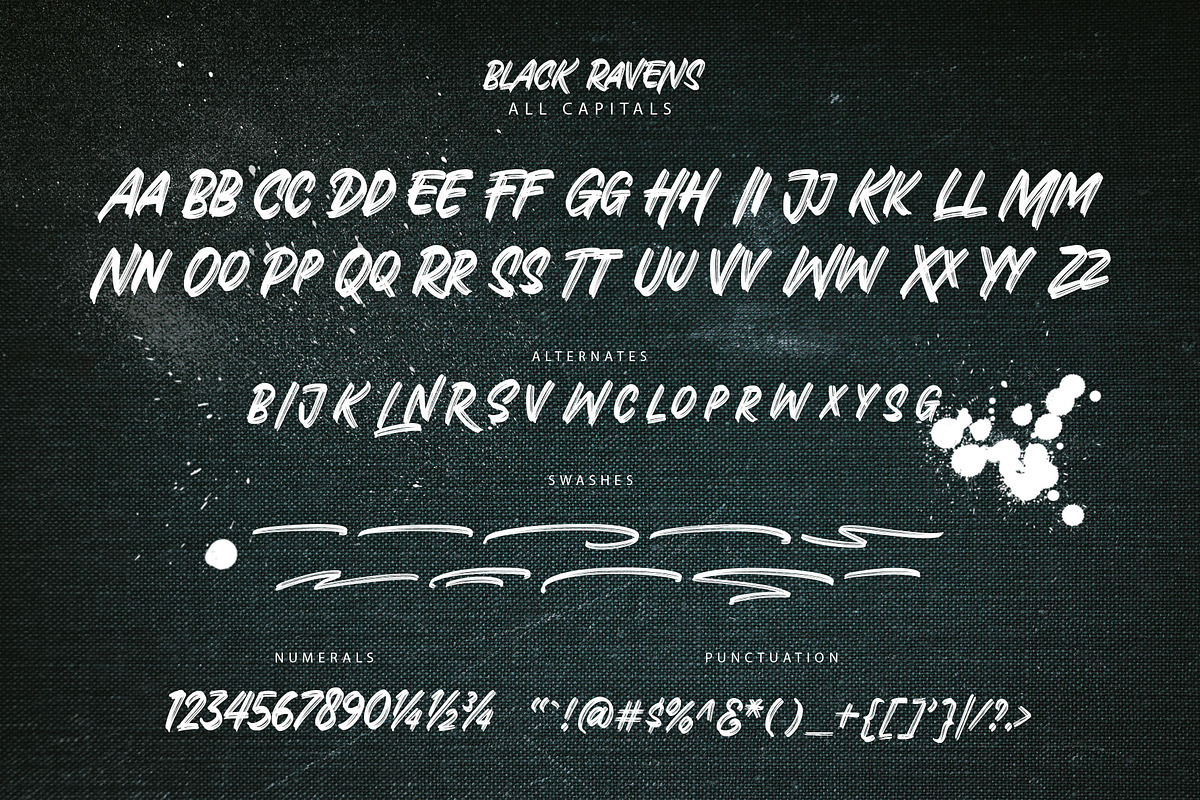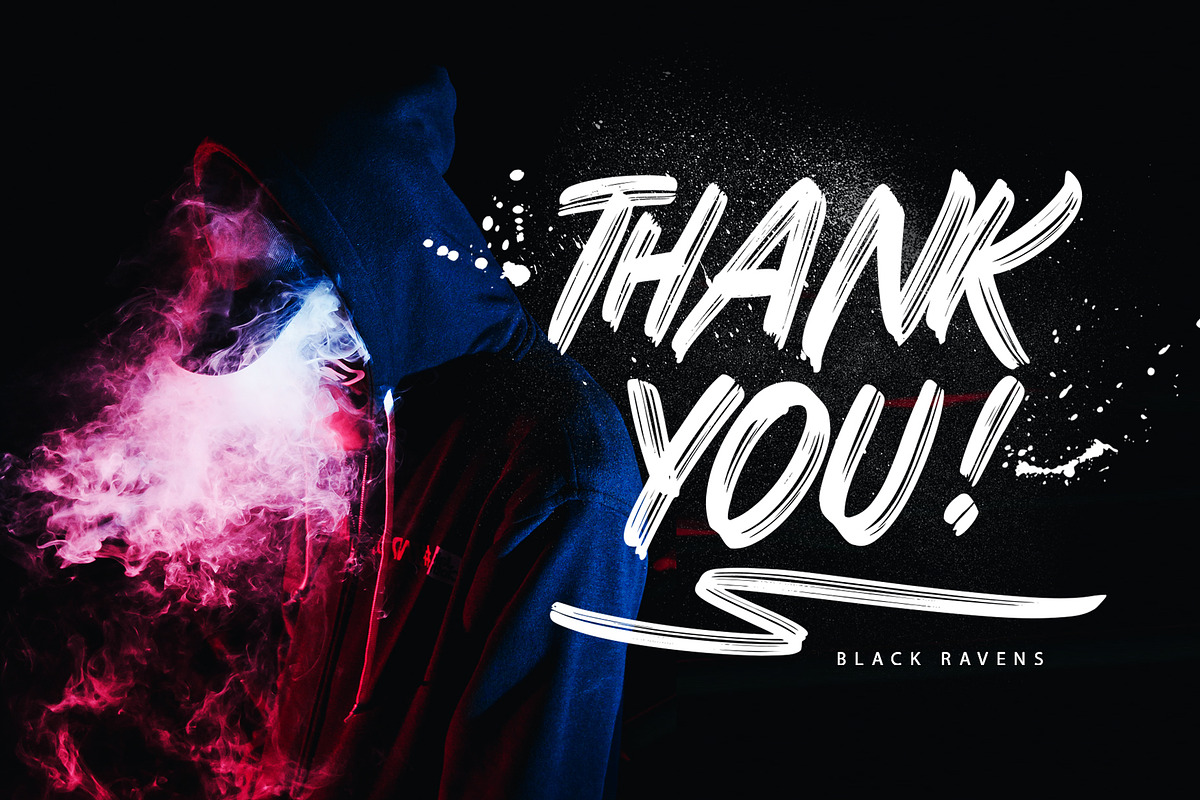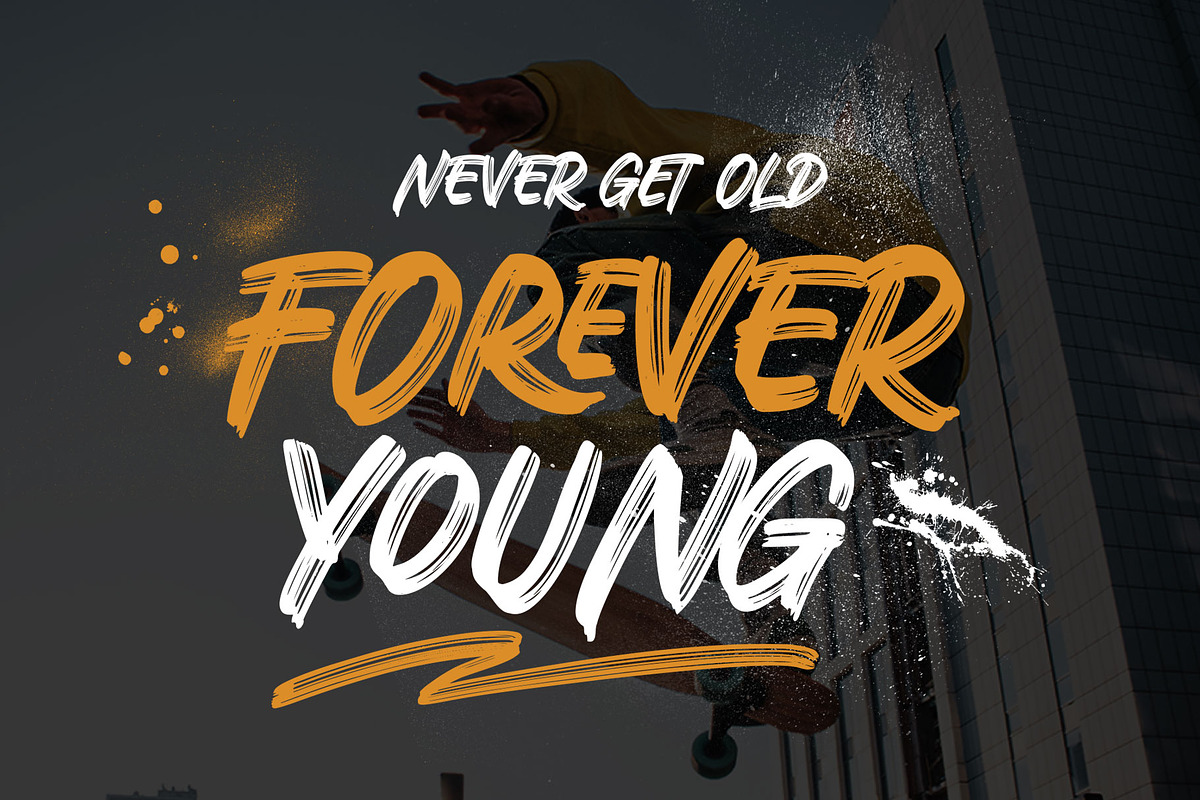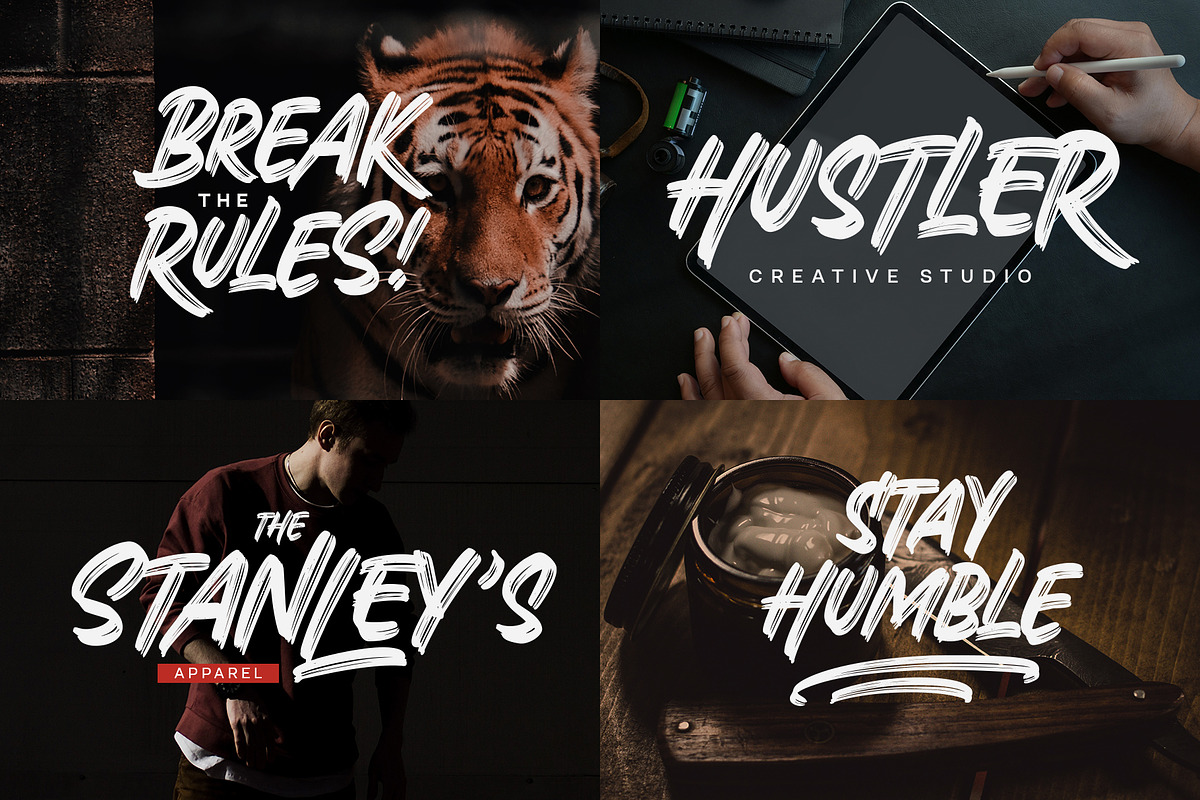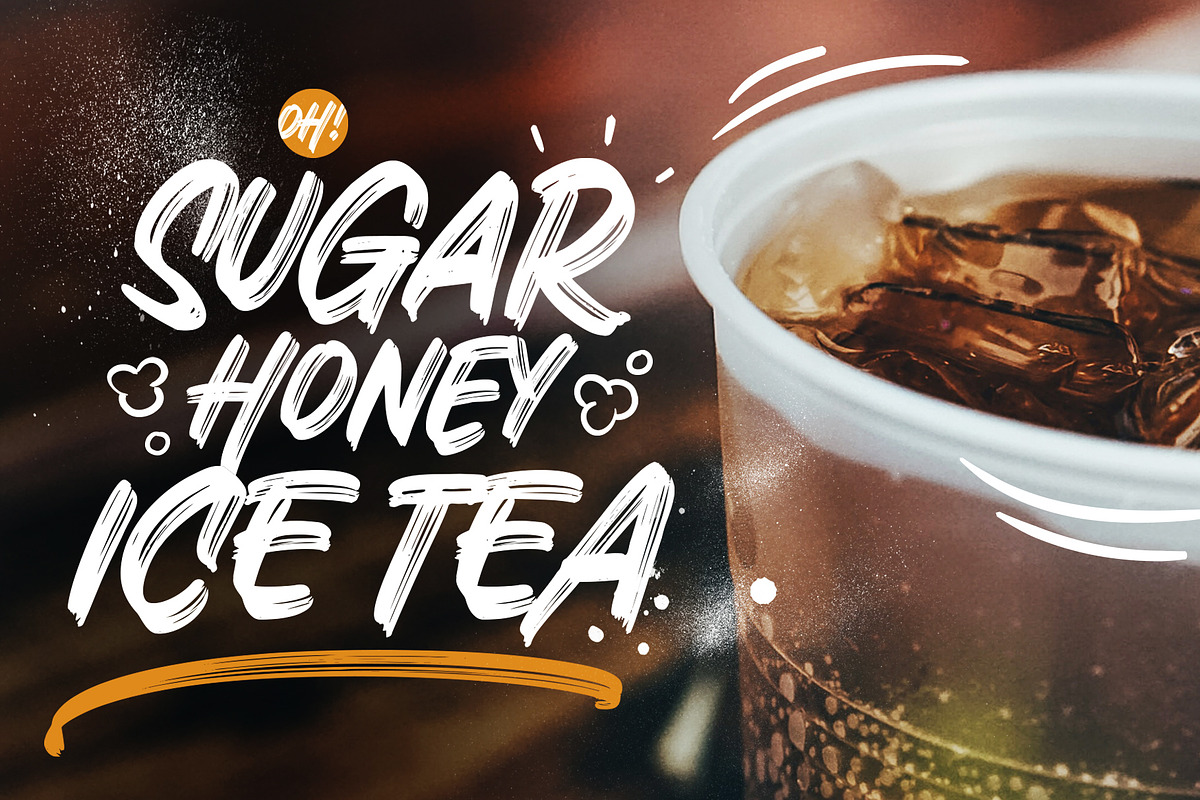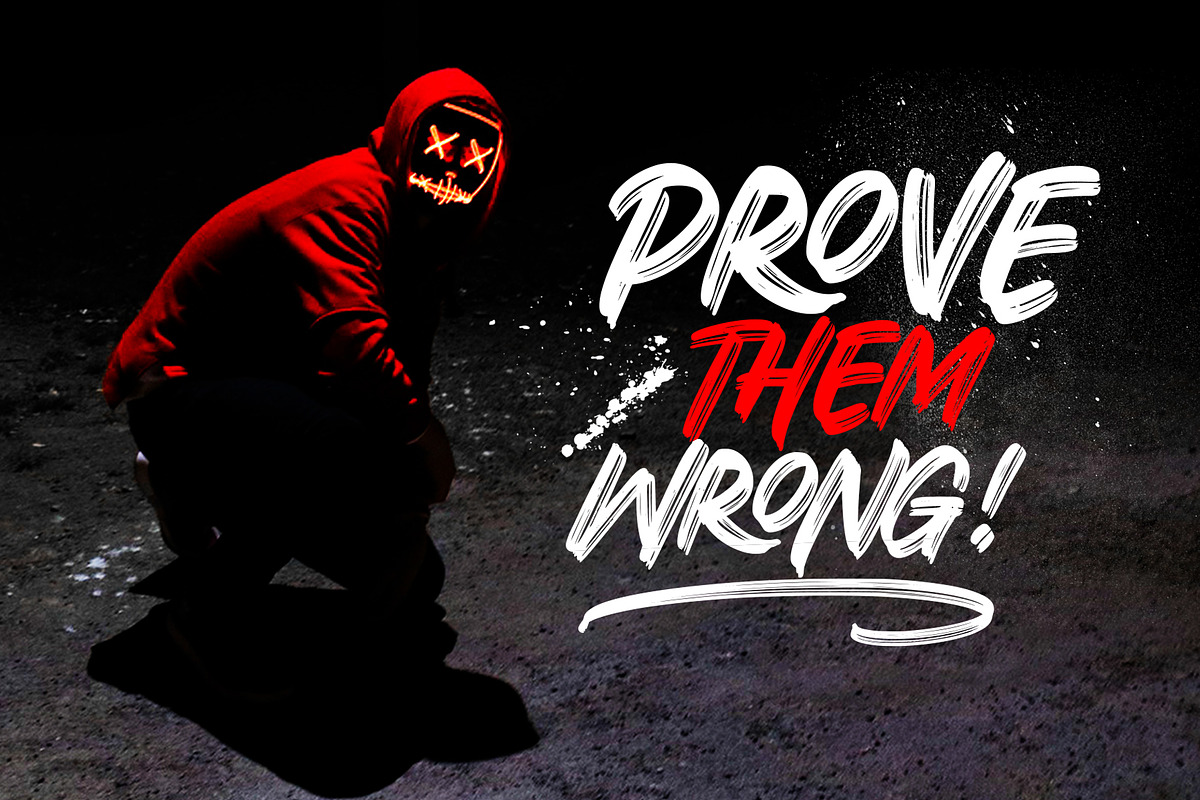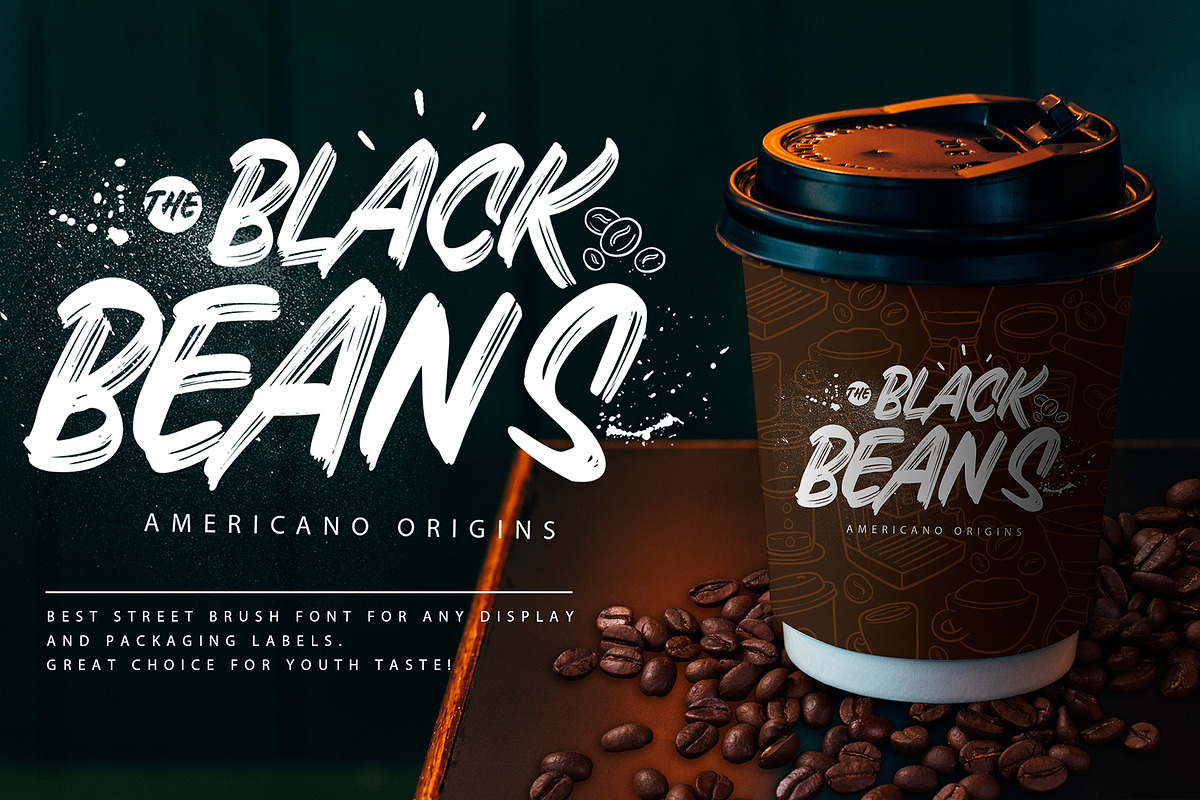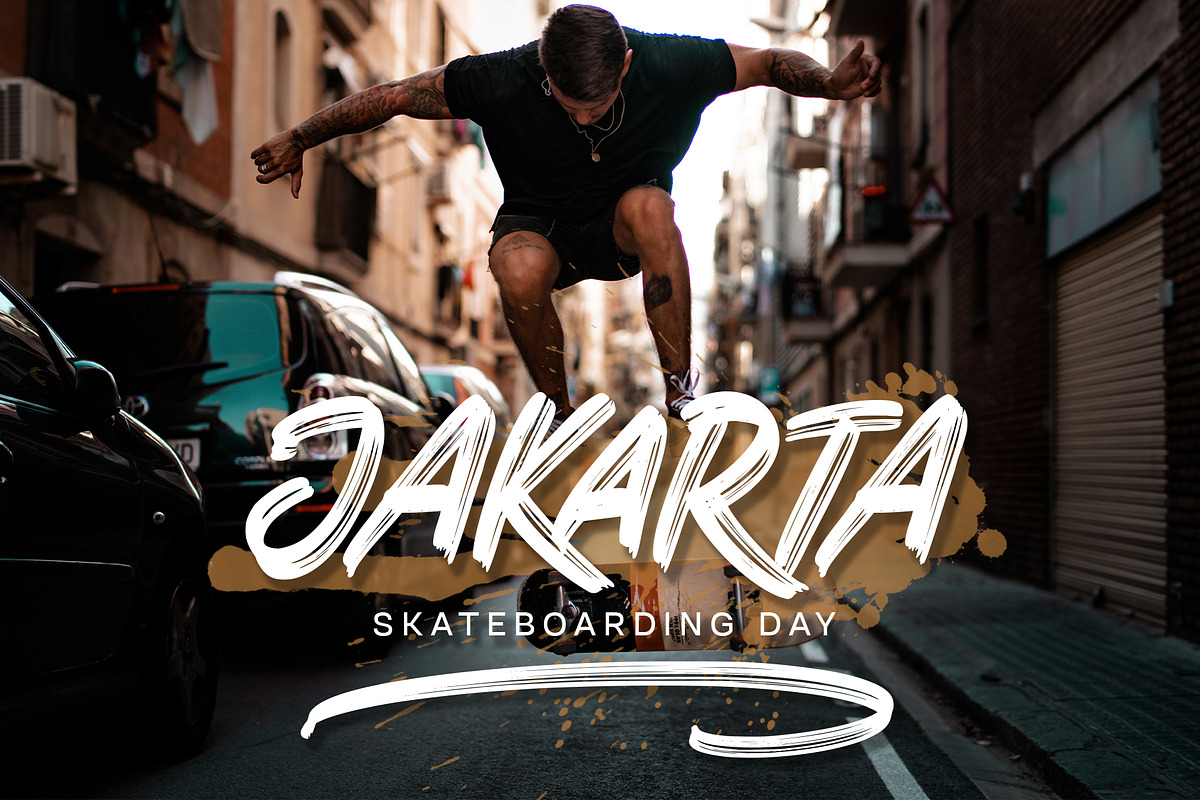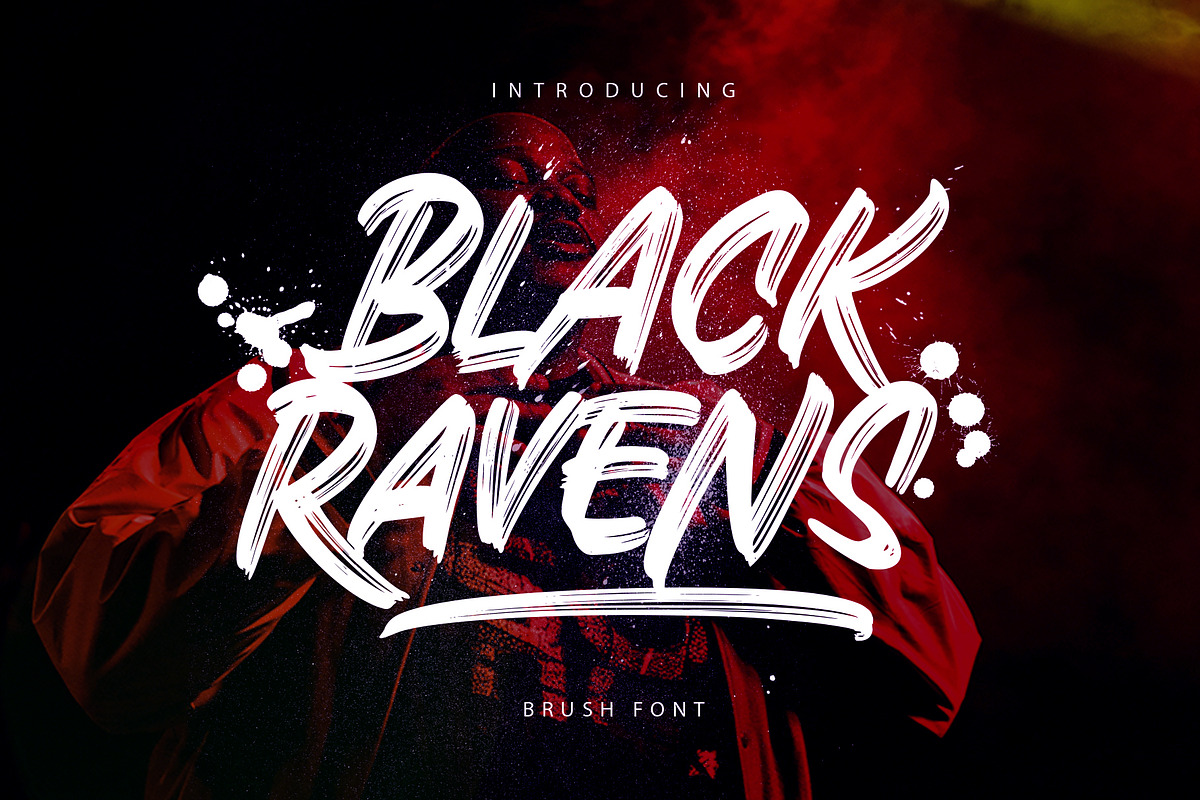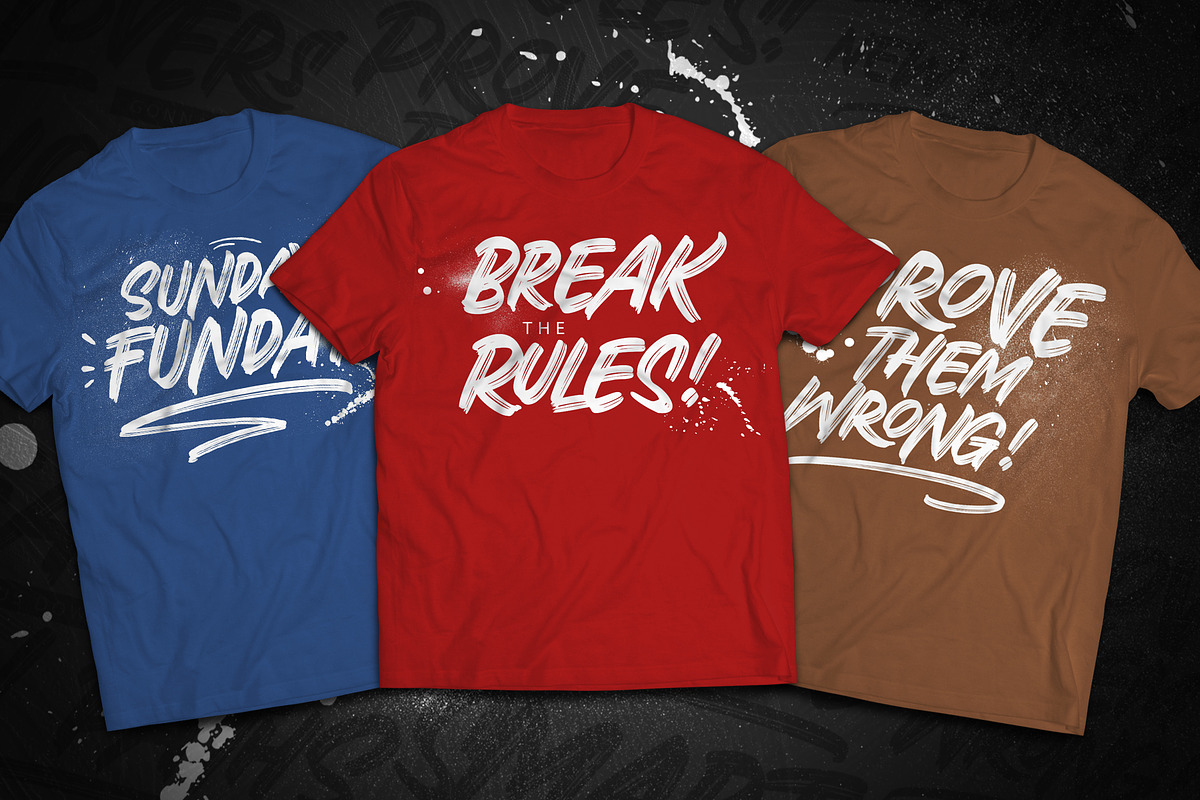
Black Ravens - Dry Brush
Introducing Black Ravens, a freestyle dry-brush font with a natural single brush. Black Raven's is a street urban font, youth theme, sporty, and masculine looks that visualize smooth strokes, and rough texture at the same time.
This font is an all-caps font that perfects for displays, title, logos, packaging, craft, labels, T-shirt, hoodie, tote bag, posters, snapback, stickers, quotes, and any advertising which needs energic typography. Black Ravens equipped with 31 stylish ligatures, swashes, multilingual, and alternates characters that you can mix and match to get your own typographic design!